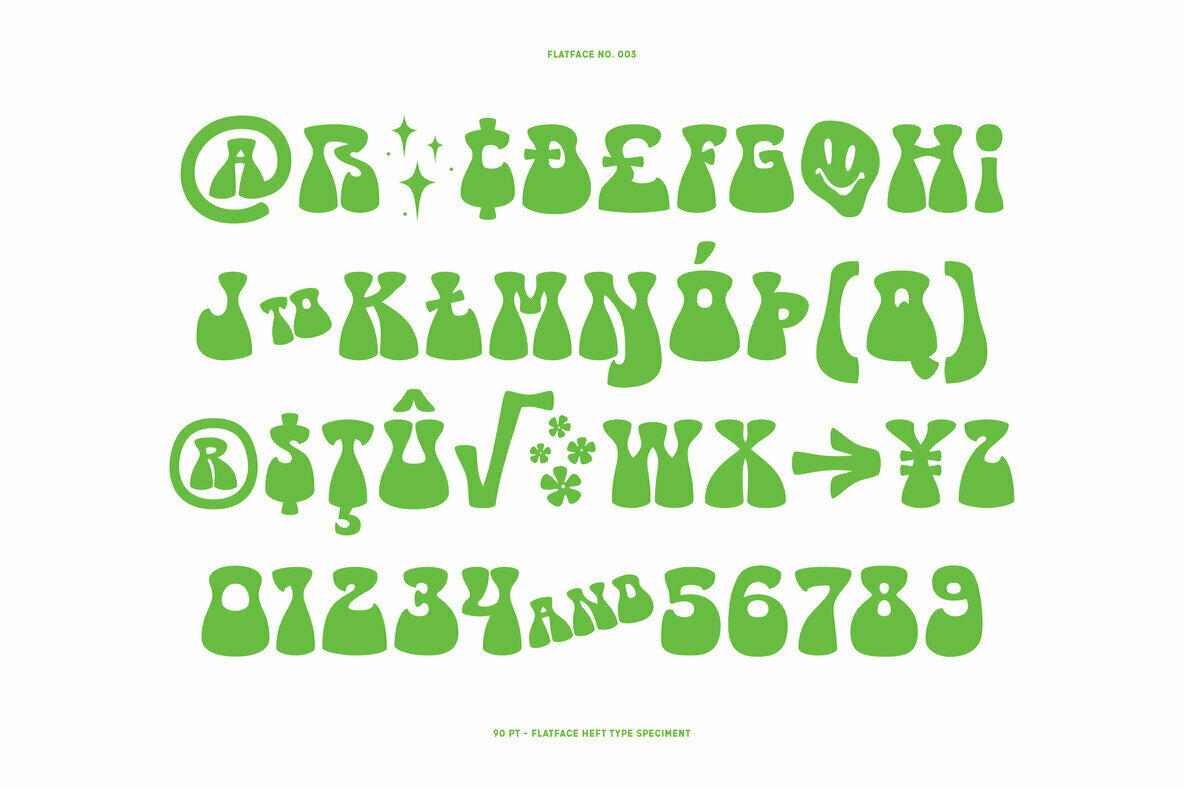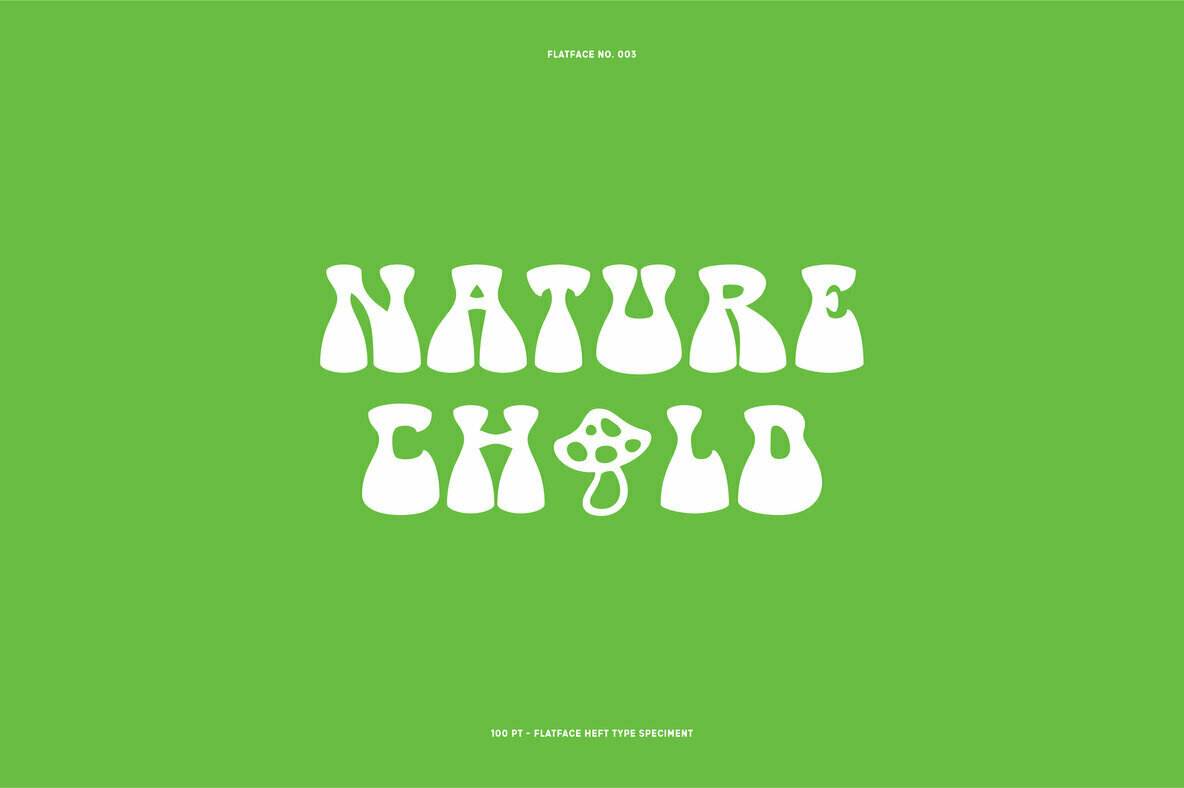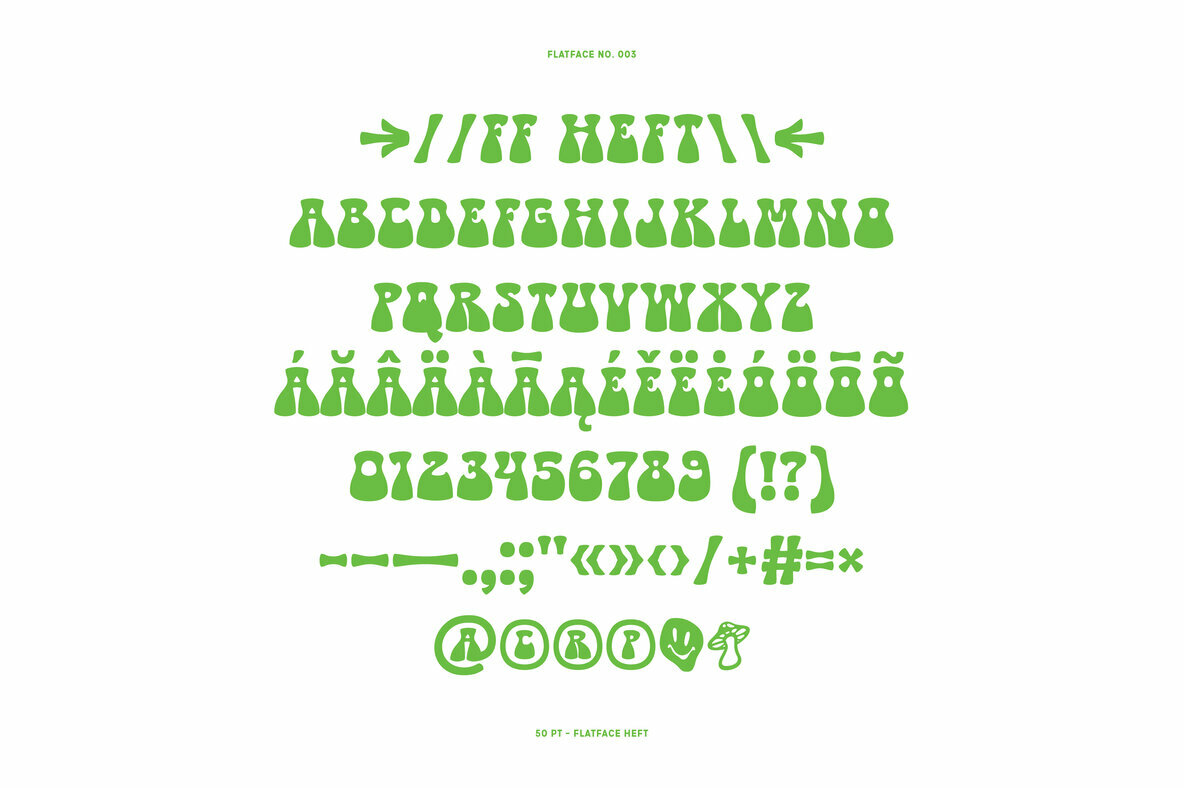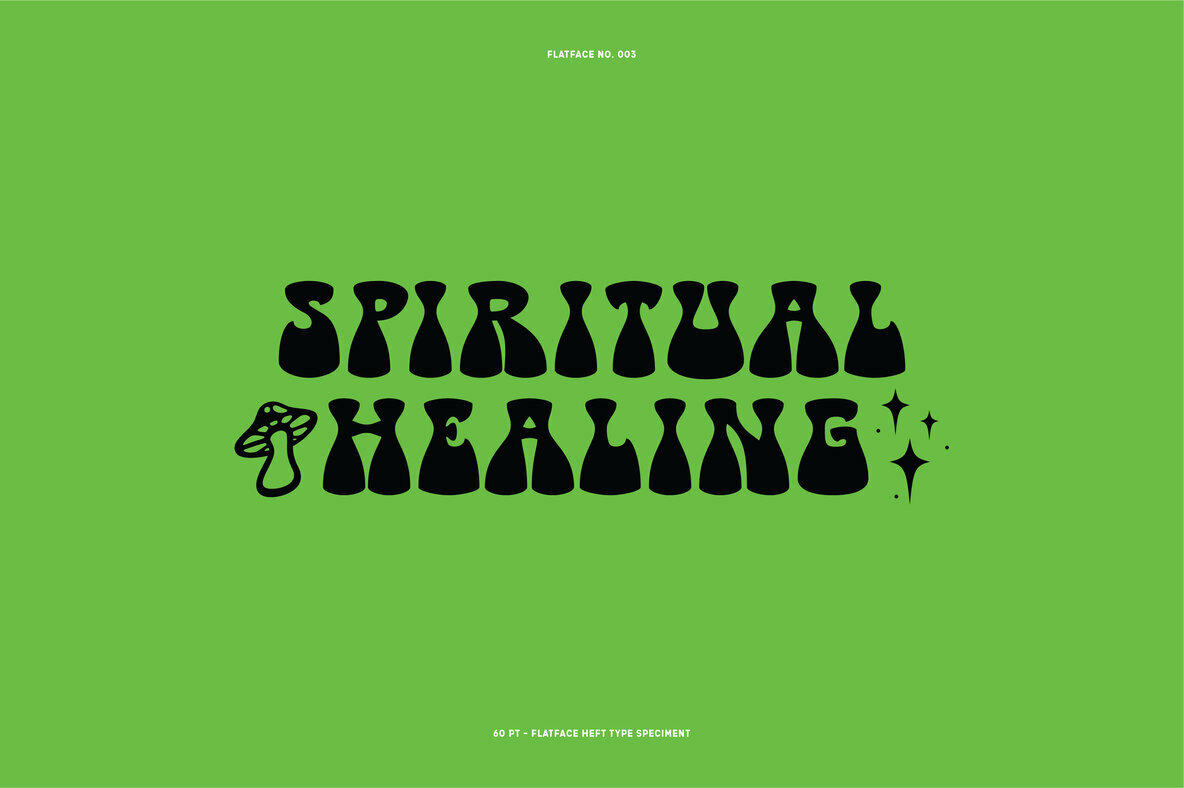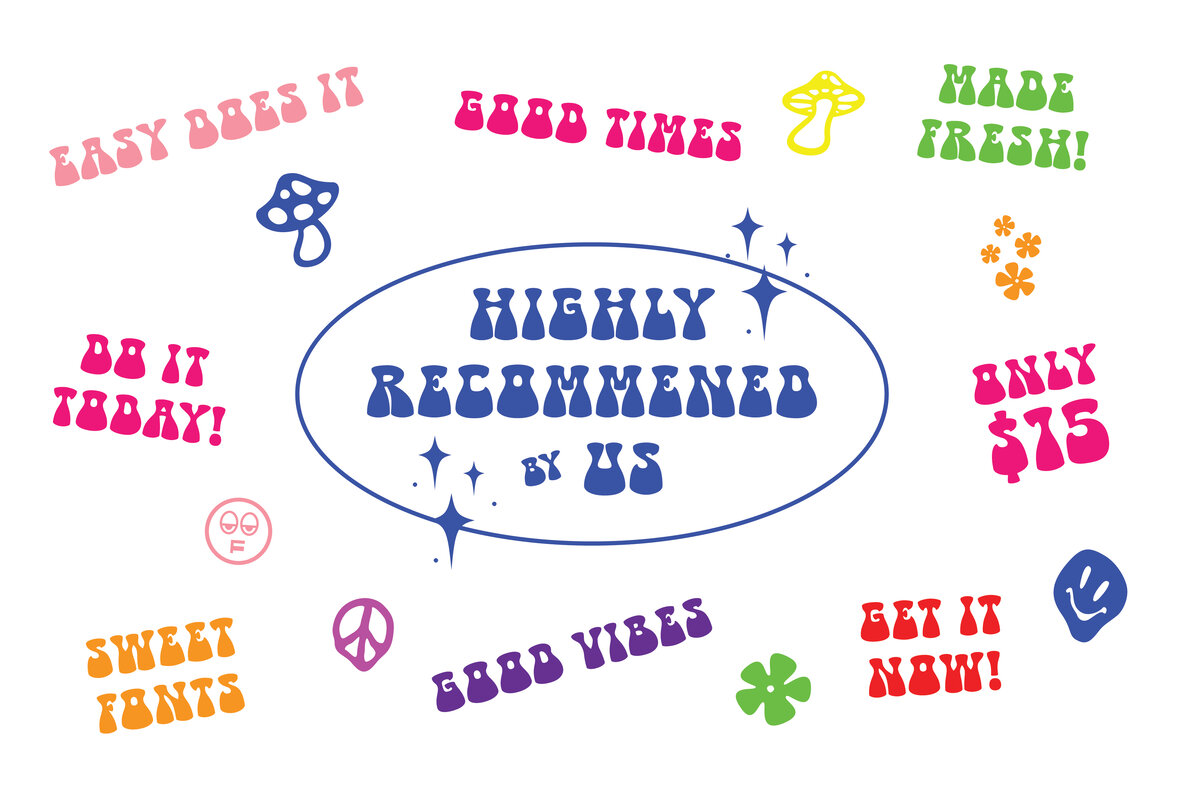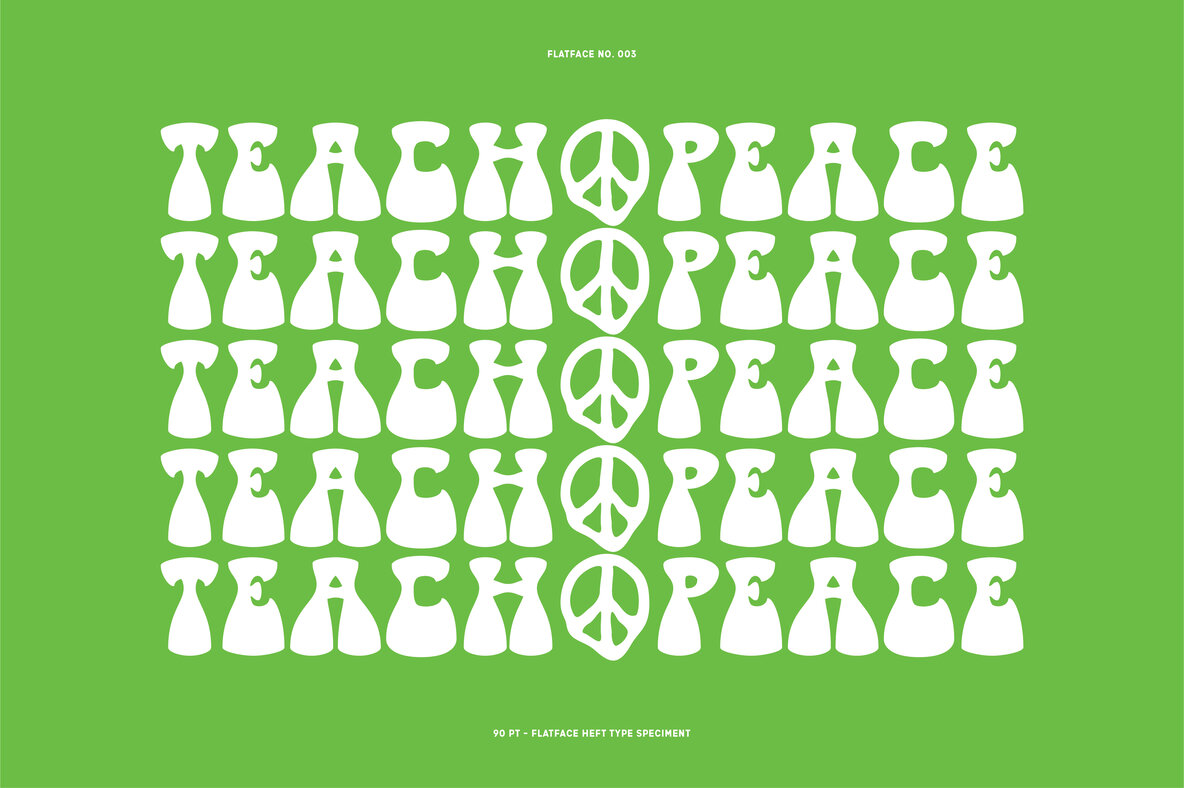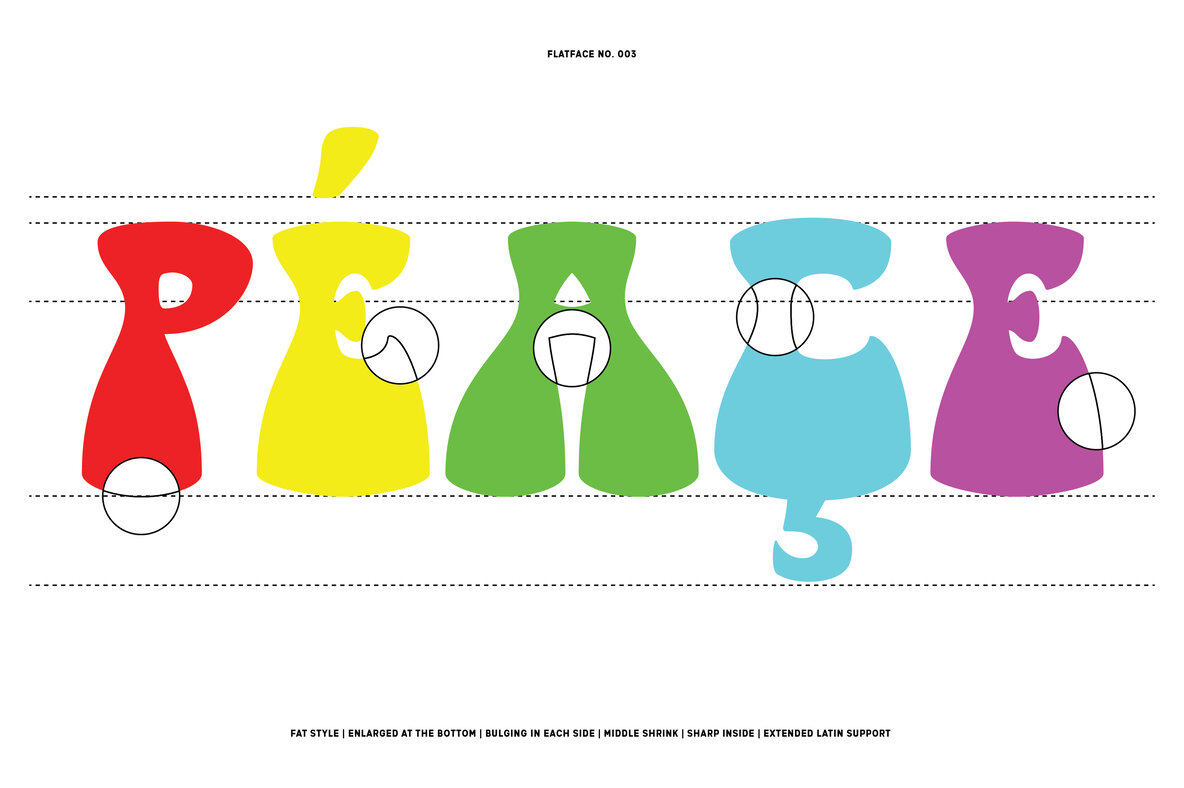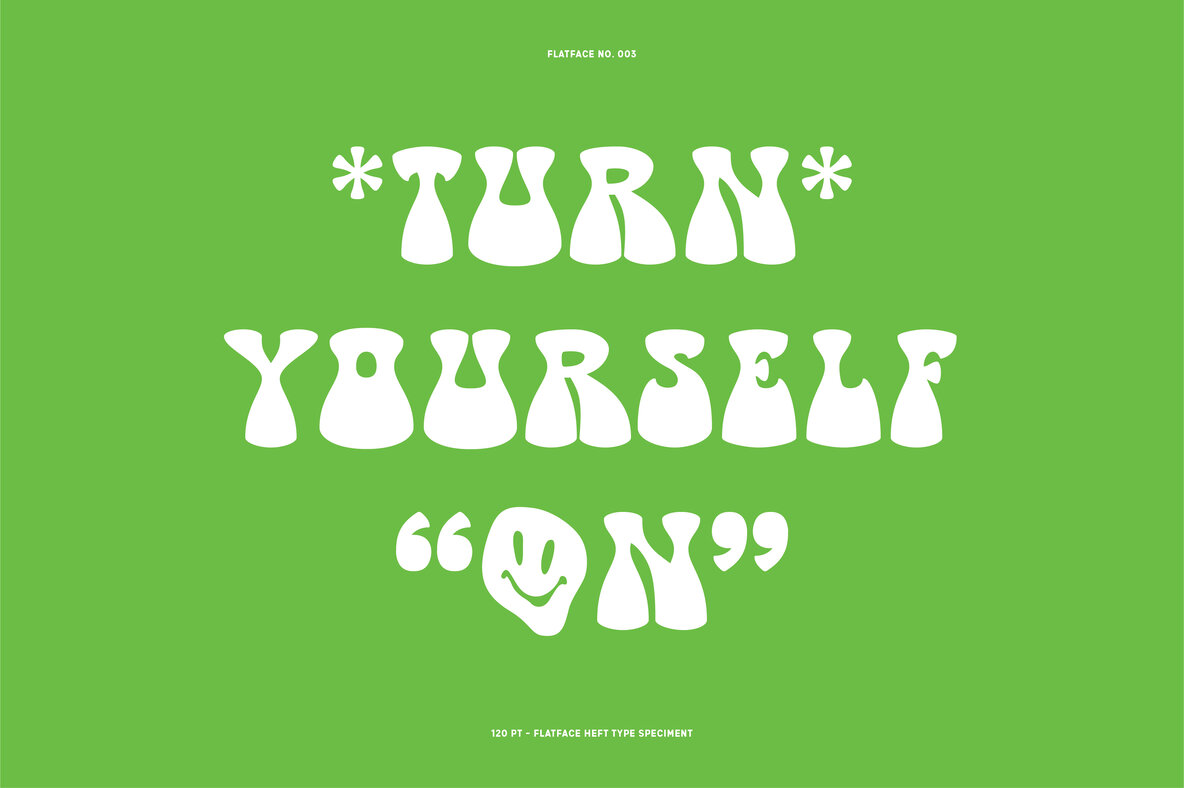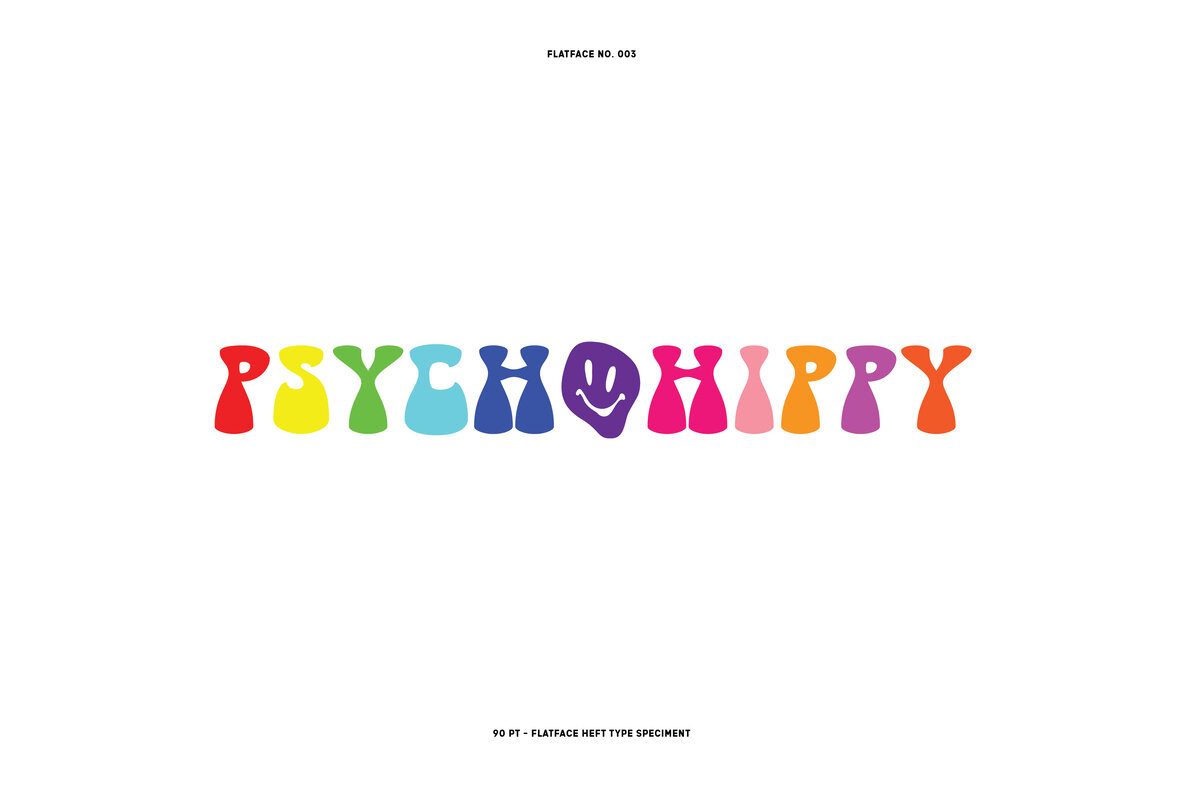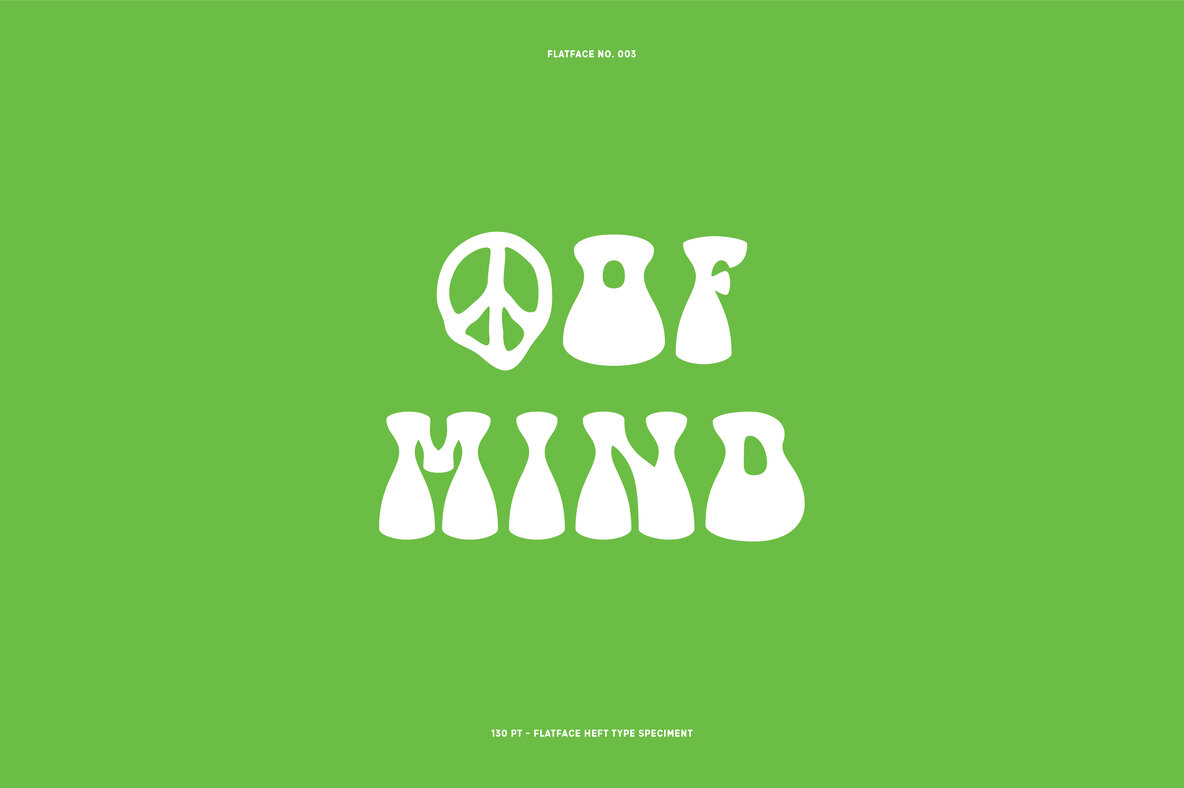
Flatface Heft Font
Flatface Heft Regular
Inspired by the iconic bell bottoms of the 1960s, Flatface Heft draws from the hippie and psychedelia art styles. This display font captures the essence of the era with its distinctly weighted base, making it an ideal choice for posters, merchandise, and gigs. Its retro flair transforms any creative project into a visual statement that is both expressive and engaging. Features:Flatface Heft: A Playful Display Font with 60s Psychedelic Appeal